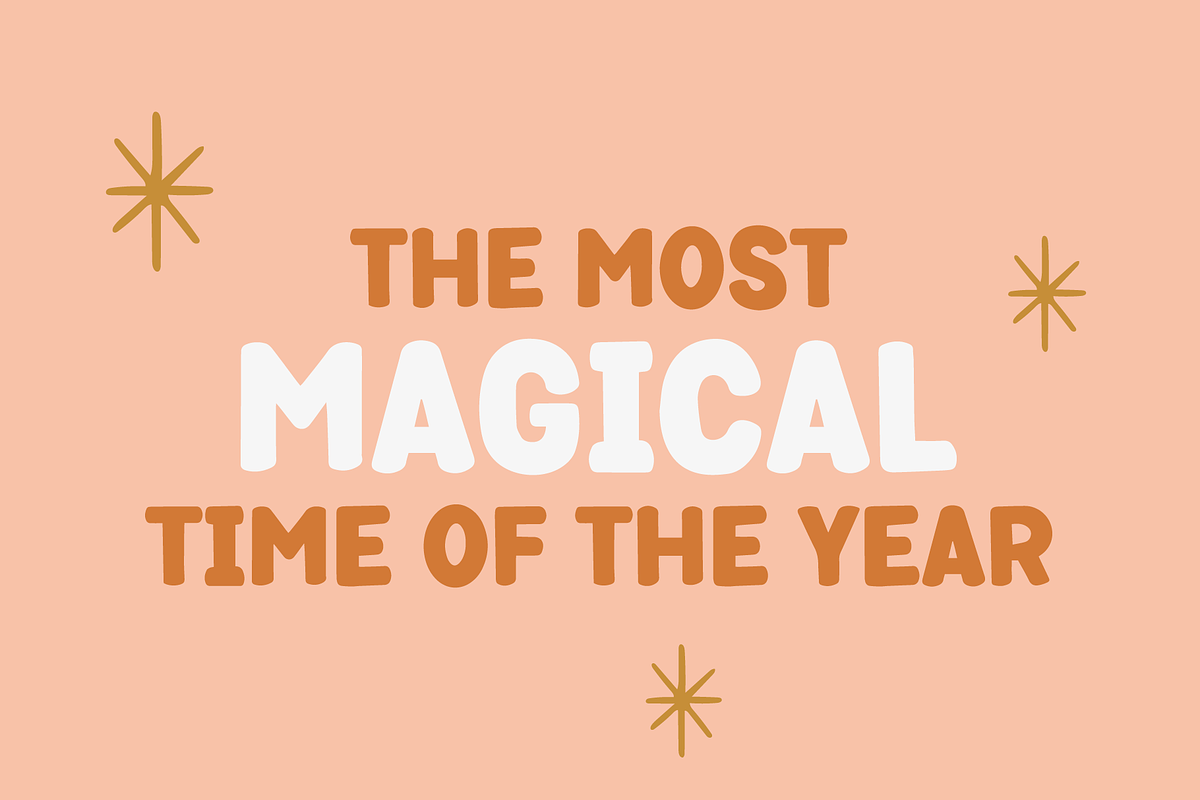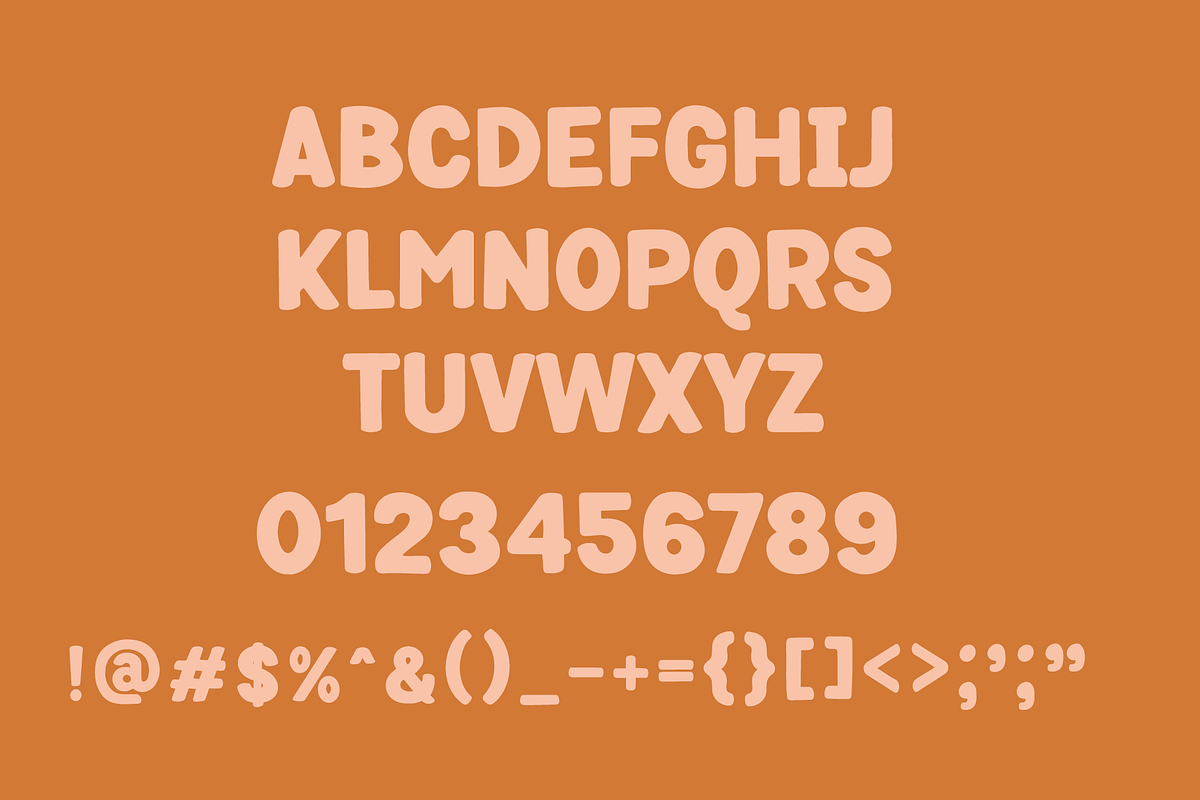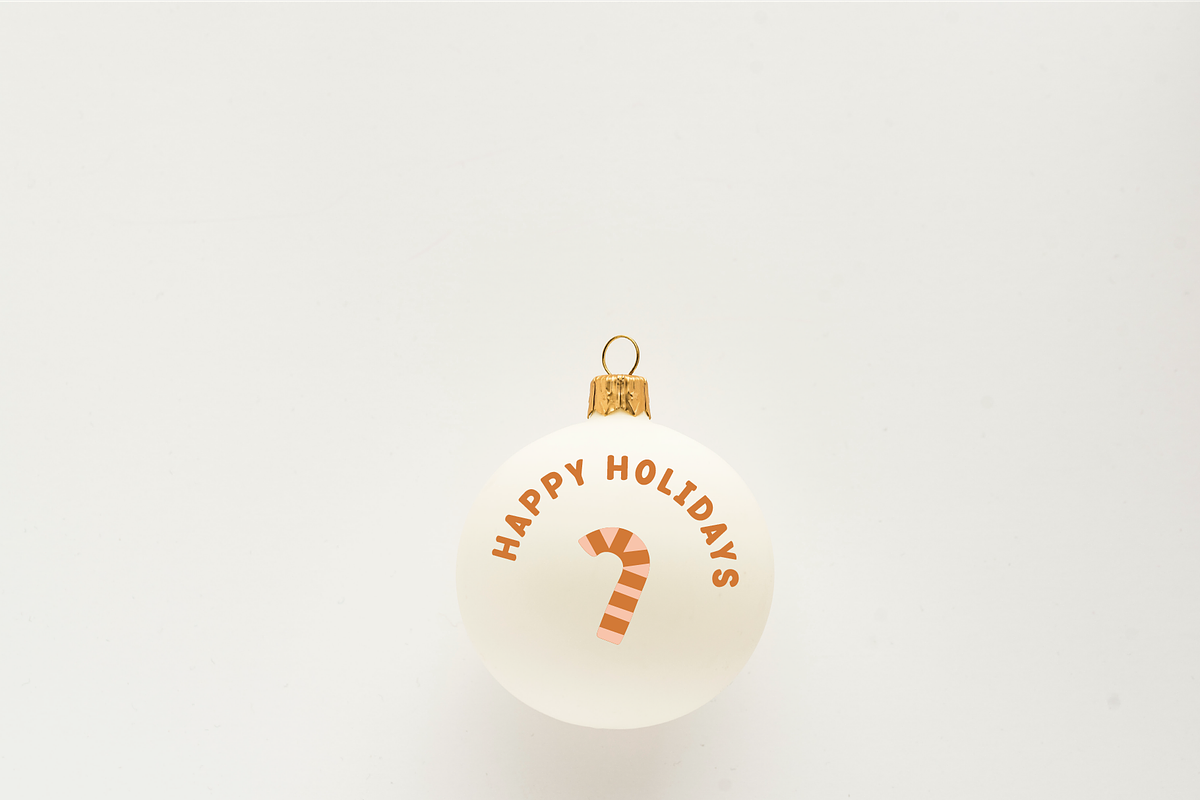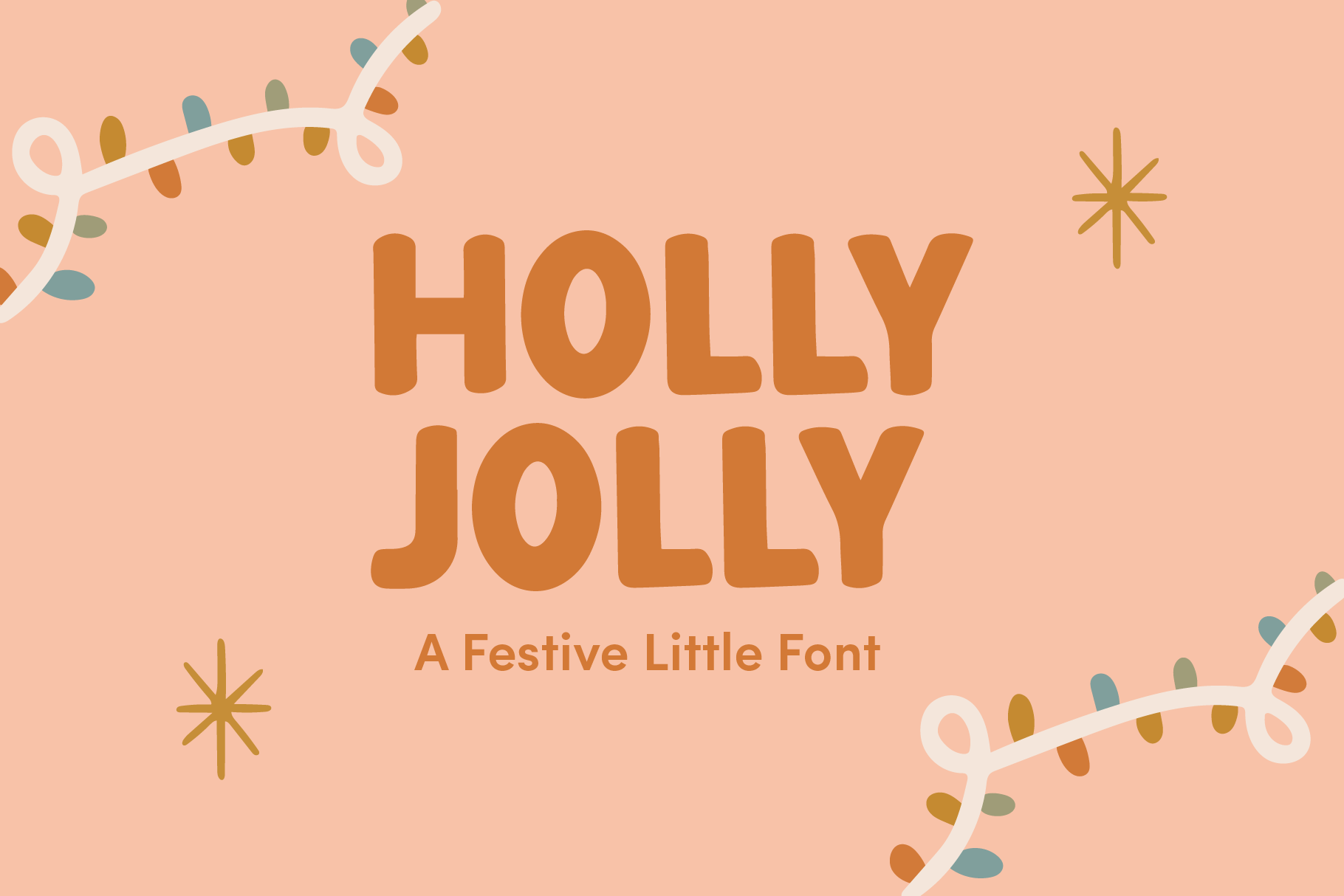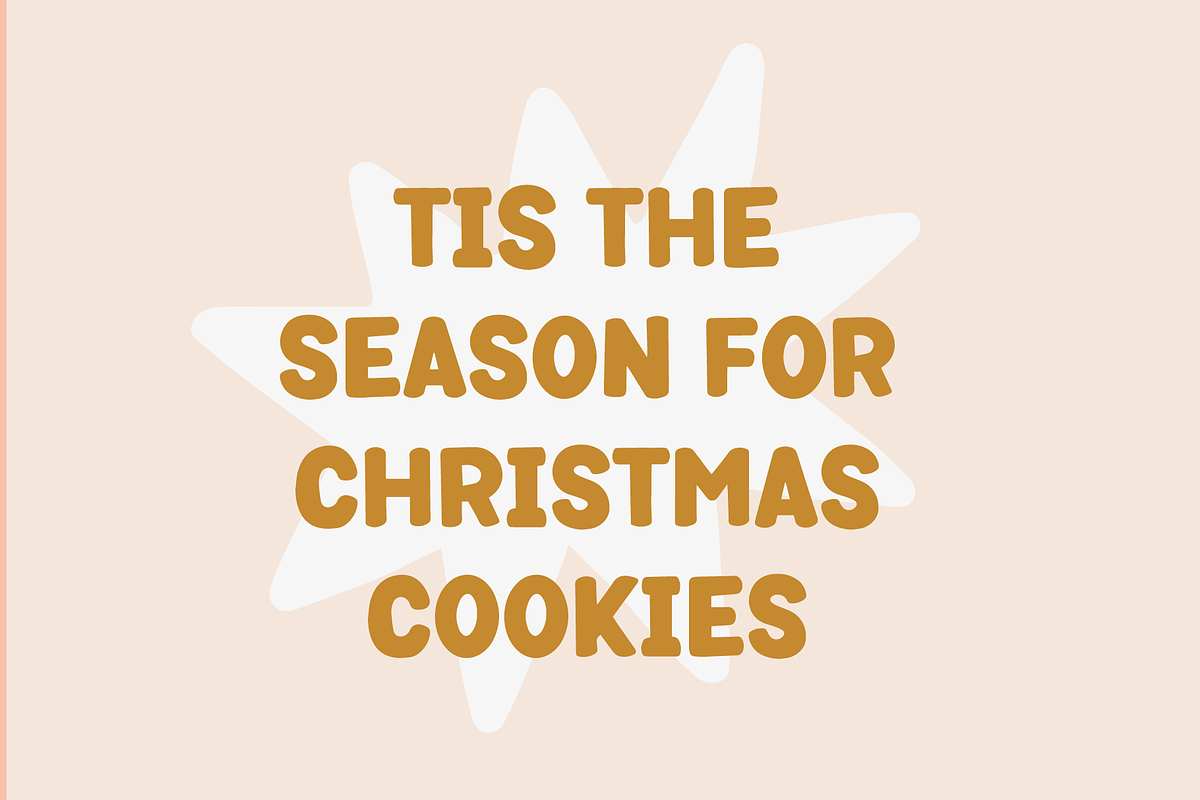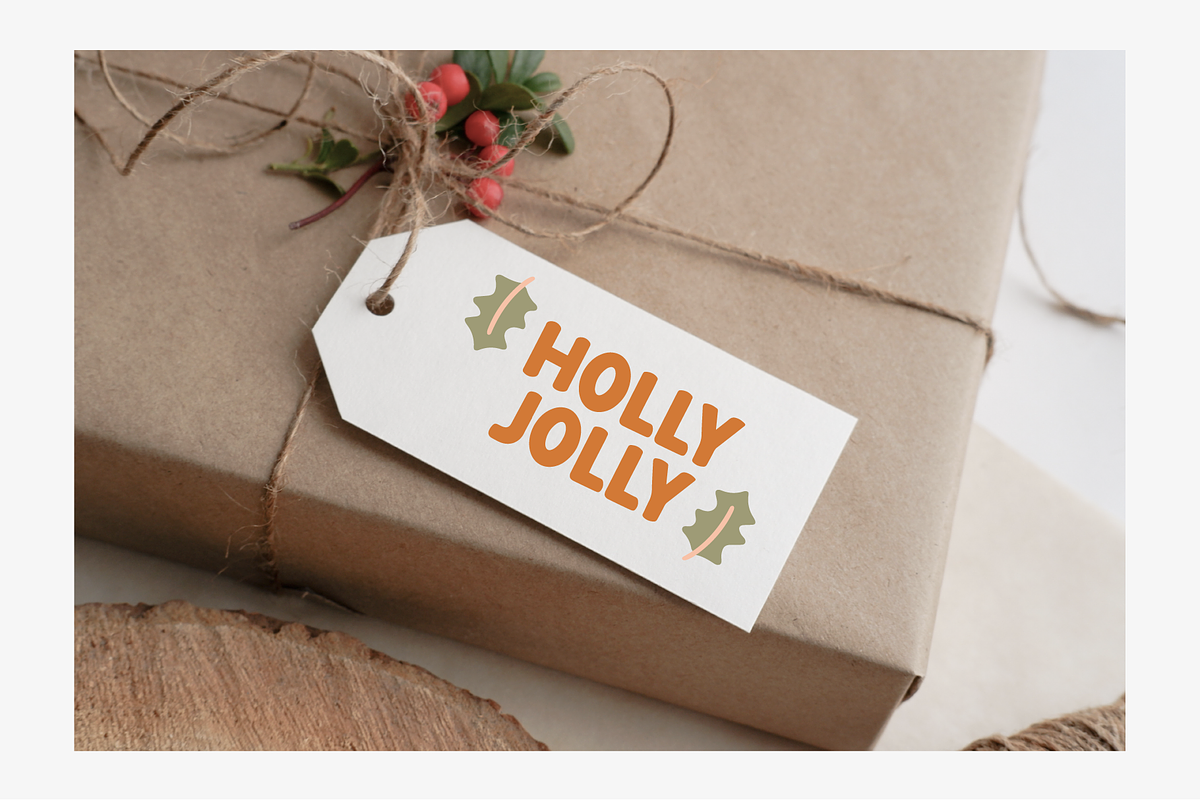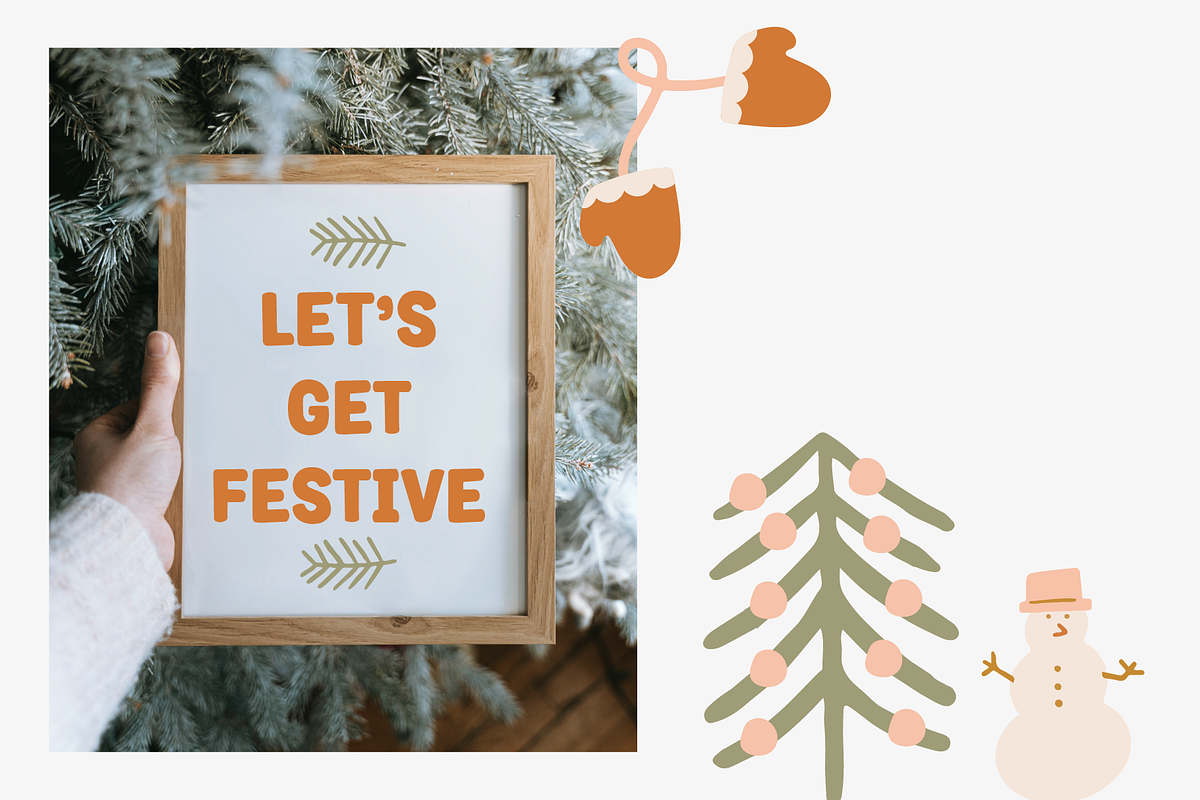
Holly Jolly A Festive Holiday Font
Holly Jolly is a bold handwritten font that is perfect for adding a personal touch to your next Christmas project.
Holly Jolly is a handwritten UPPERCASE display font. This font works great for creating logos, quotes to share on Instagram, social media, and more! Please note the font only comes with what you see on the second image. Punctuation and symbols are limited.